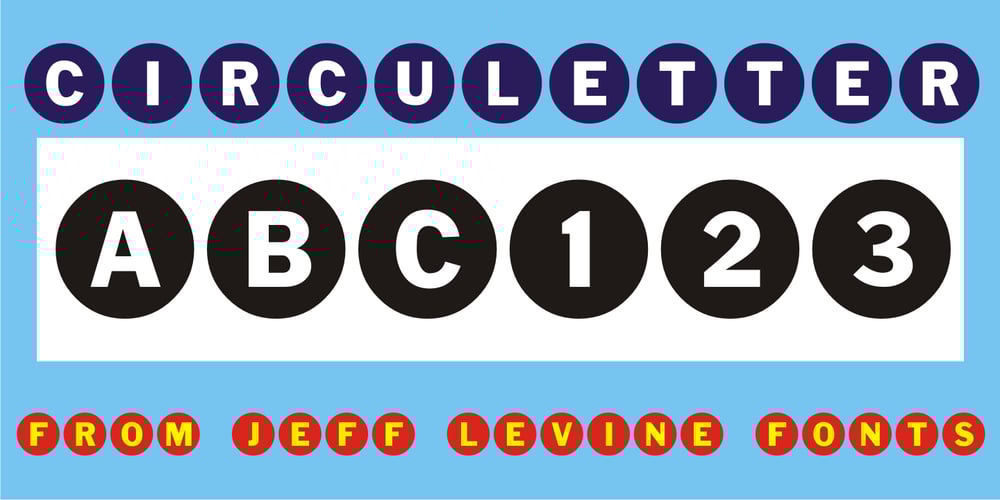
Circuletter JNL Font Family was designed by Jeff Levine and published by Jeff Levine. Circuletter JNL contains 1 styles and family package options. Letters in circles are certainly nothing new typographically, but nonetheless they were a favorite tool for sign makers in past decades for emphasizing names or key words in a message. Inspired by an image of an old-time hardware store sign in New York City with Franklinesque lettering, it has been reproduced as Circuletter JNL.